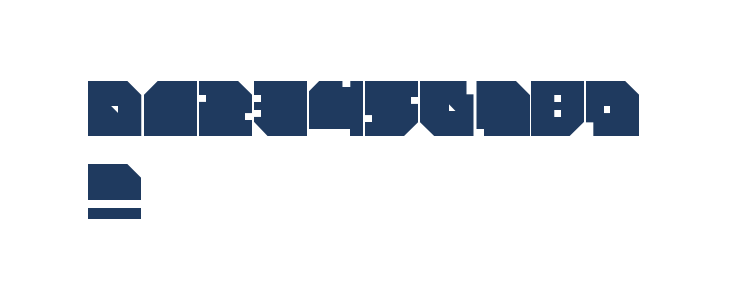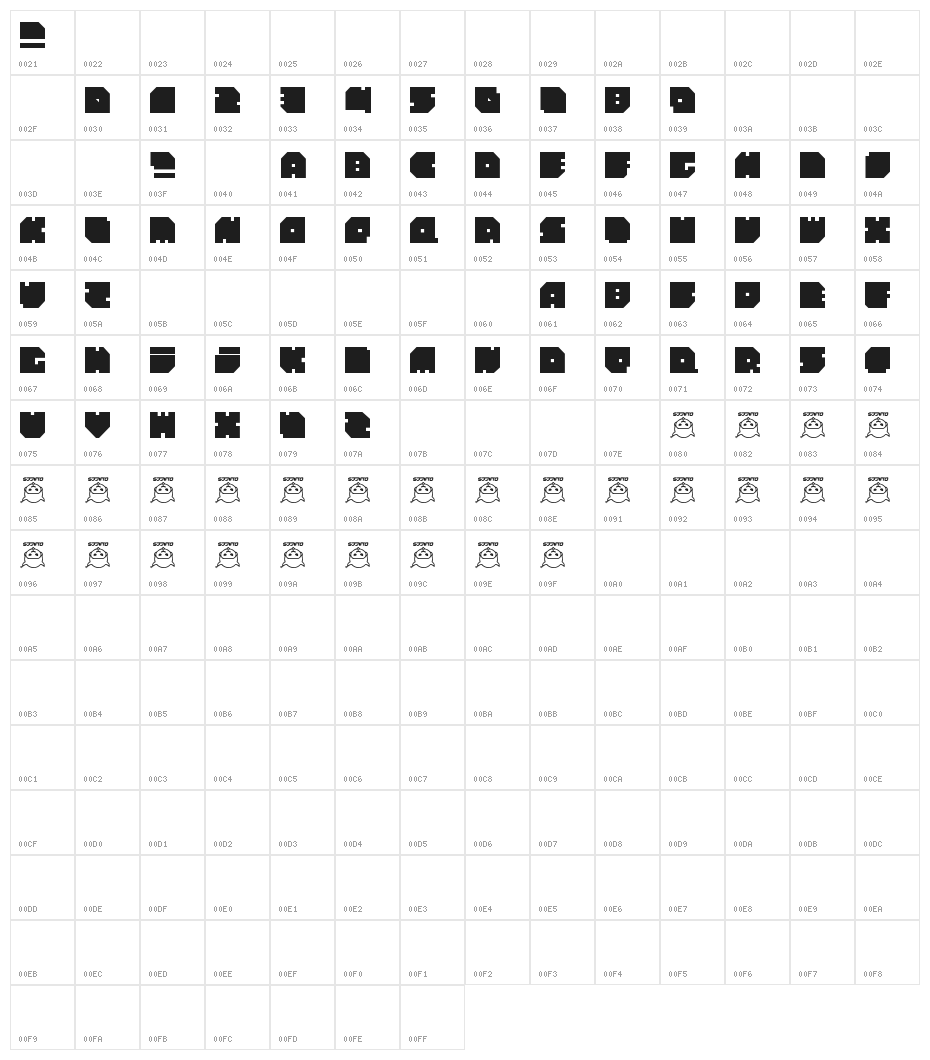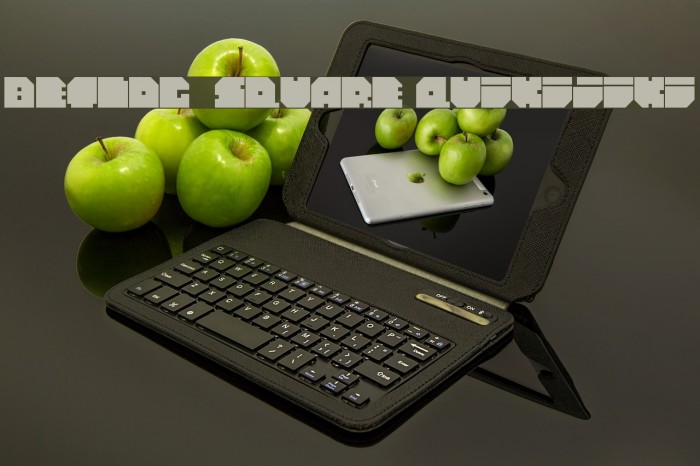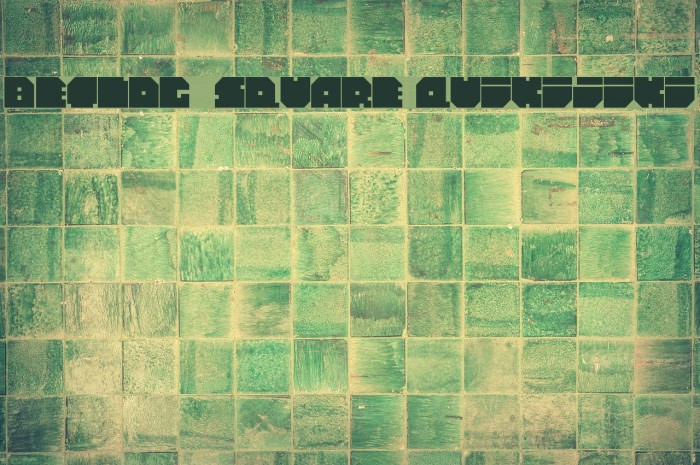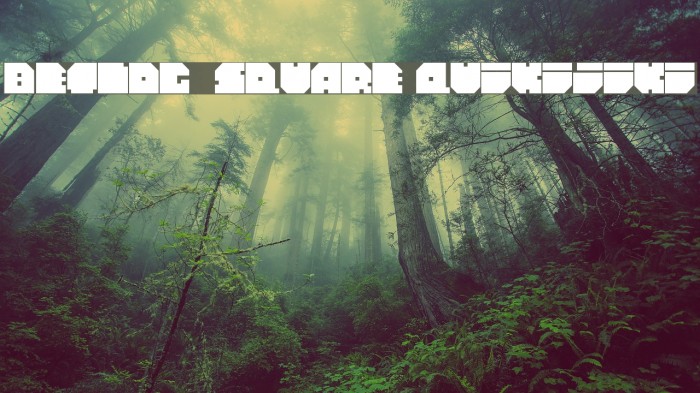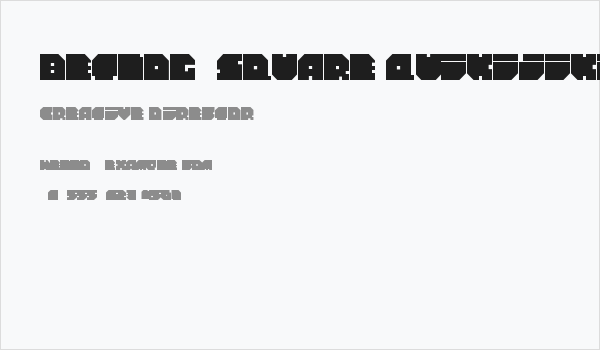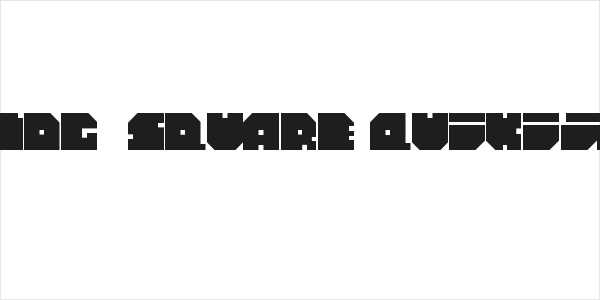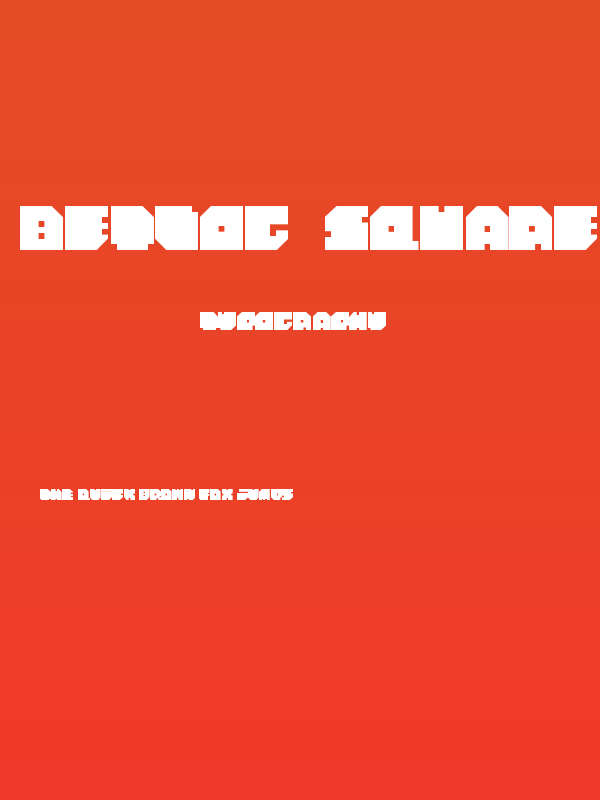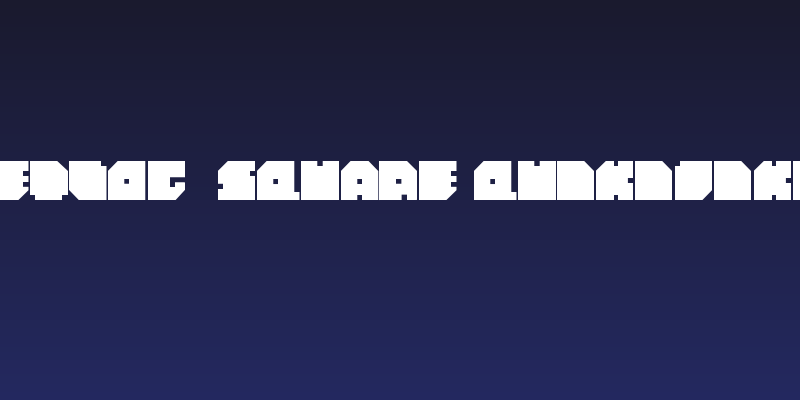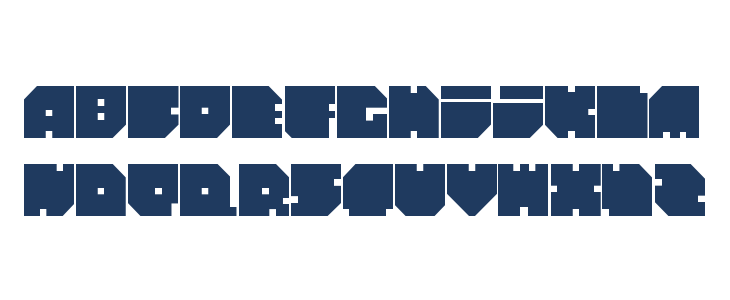
Betlog_Square[Quikijiki] Font
Betlog_Square[Quikijiki] Description
This font features a bold, geometric design with a distinctly modern and futuristic aesthetic. The characters are constructed from solid, block-like shapes, creating a sense of strength and stability. The angular edges and uniform thickness of the strokes contribute to its industrial feel. The uppercase and lowercase letters maintain a consistent style, with minimal differentiation in height, enhancing its monospaced appearance. The numbers and special characters follow the same design principles, ensuring a cohesive look across all glyphs. This font is ideal for projects that require a strong visual impact and a contemporary edge.
| Proposed Projects | Ideal for branding, posters, video game graphics, and futuristic-themed designs. |